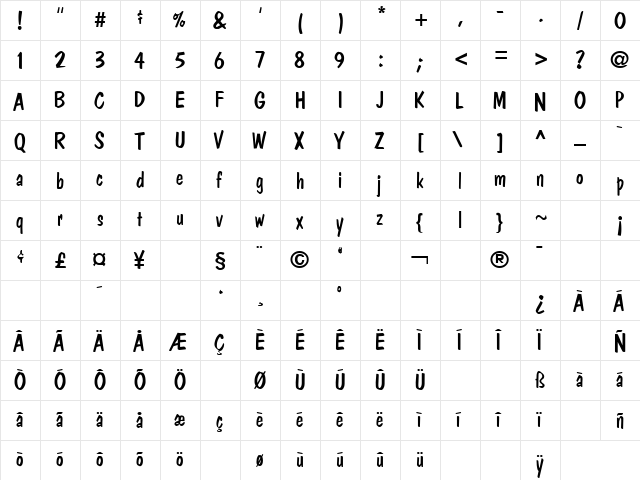
Franciscan Regular
Design Context for Franciscan Typeface
Franciscan is a composed and adaptable typeface that performs quietly and consistently across a wide range of design contexts.